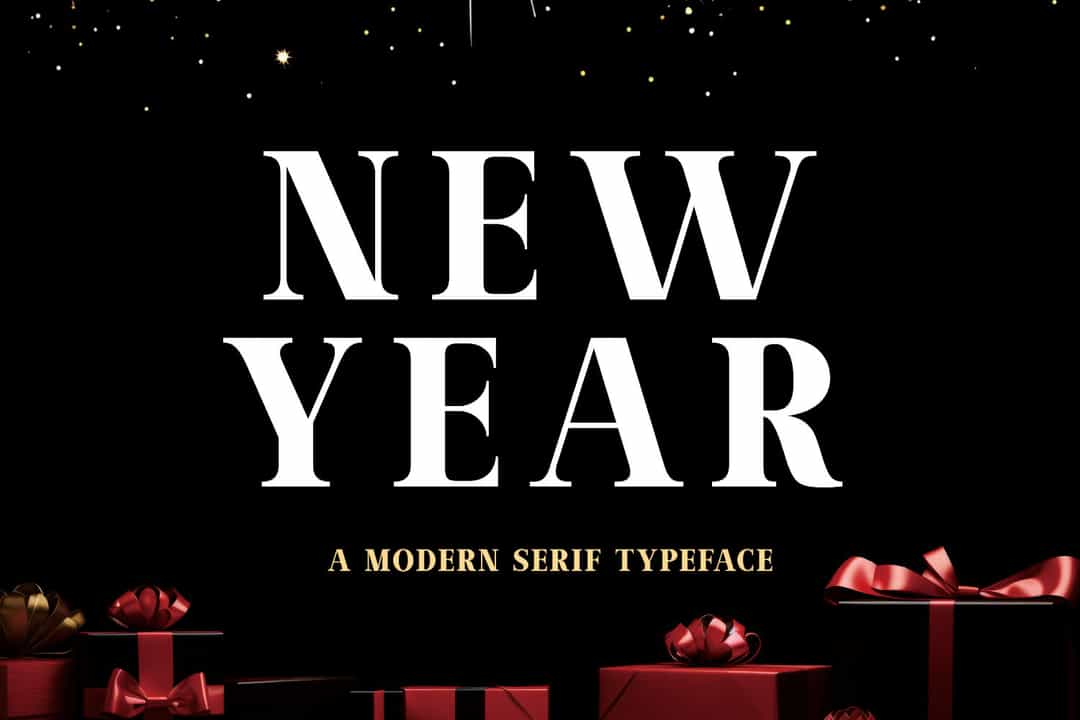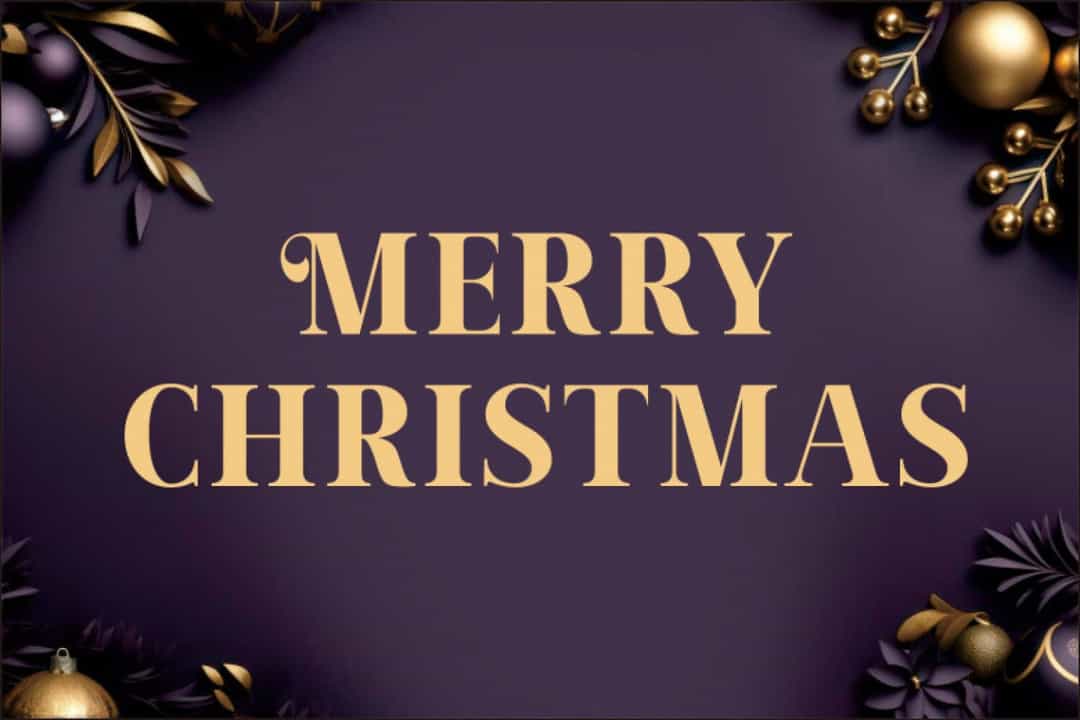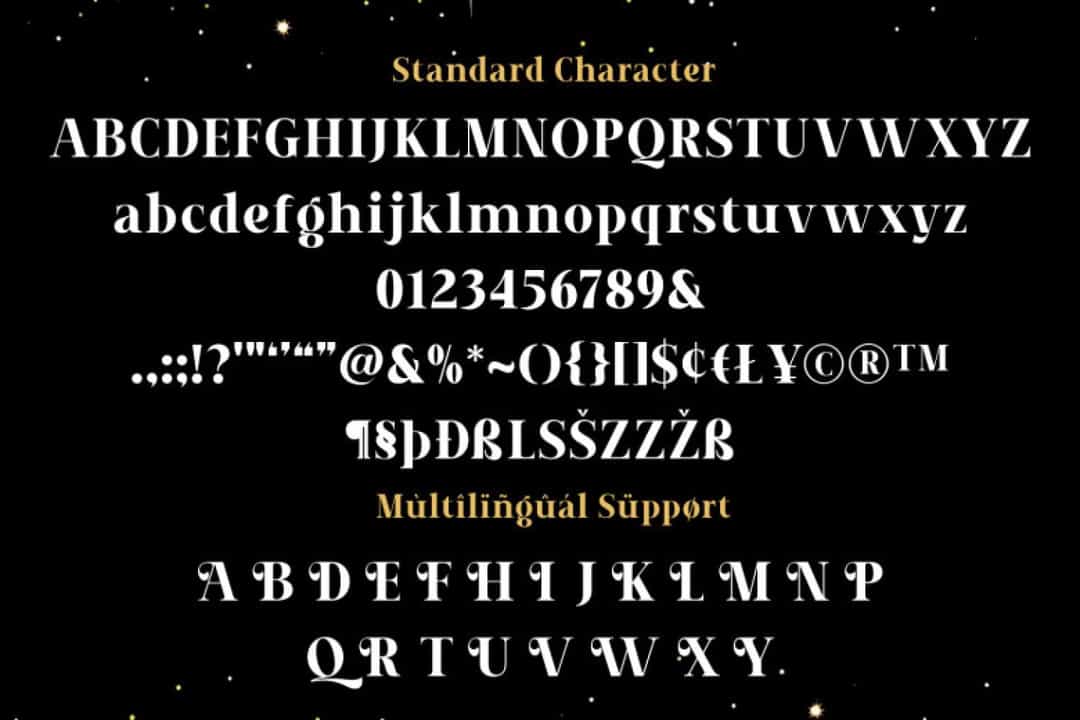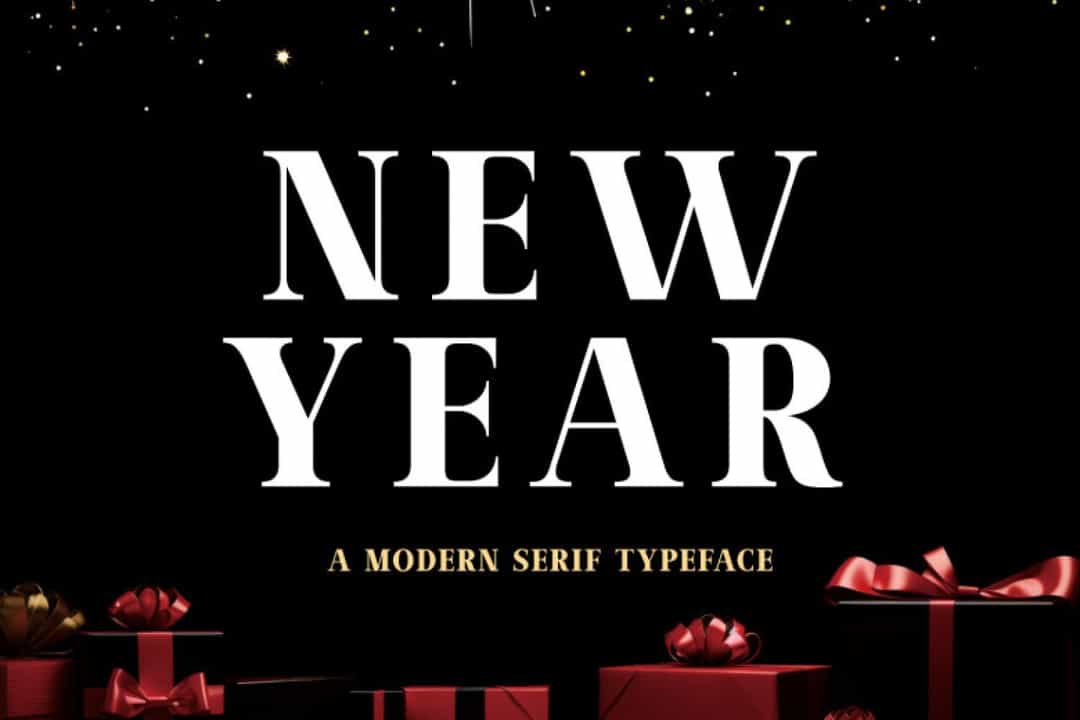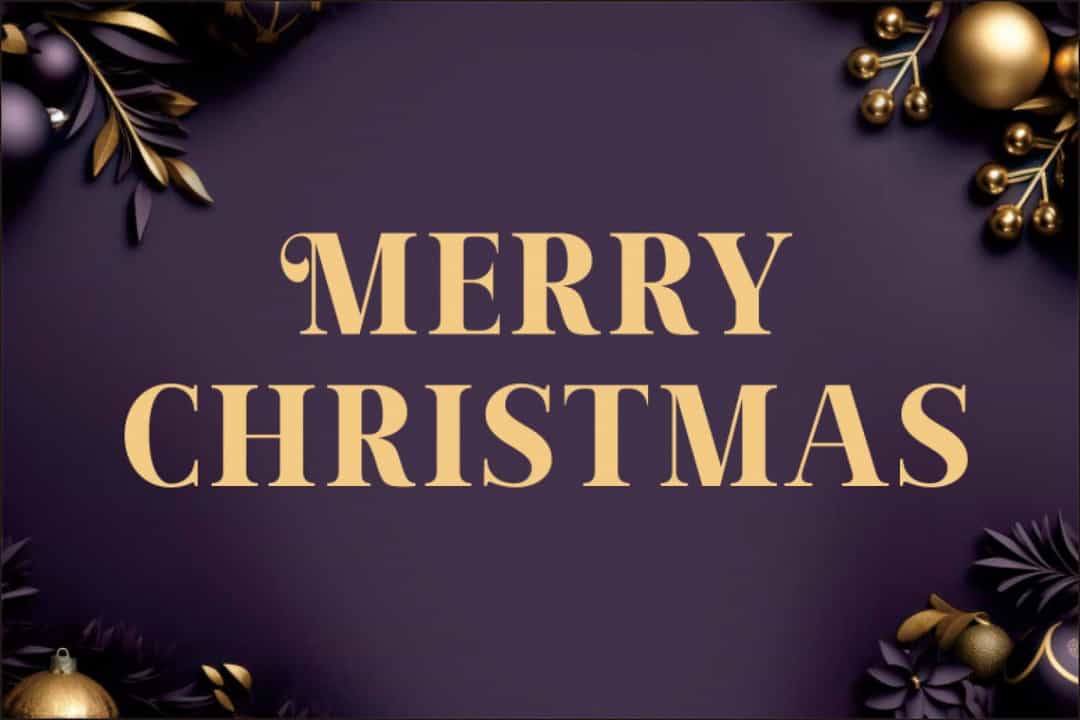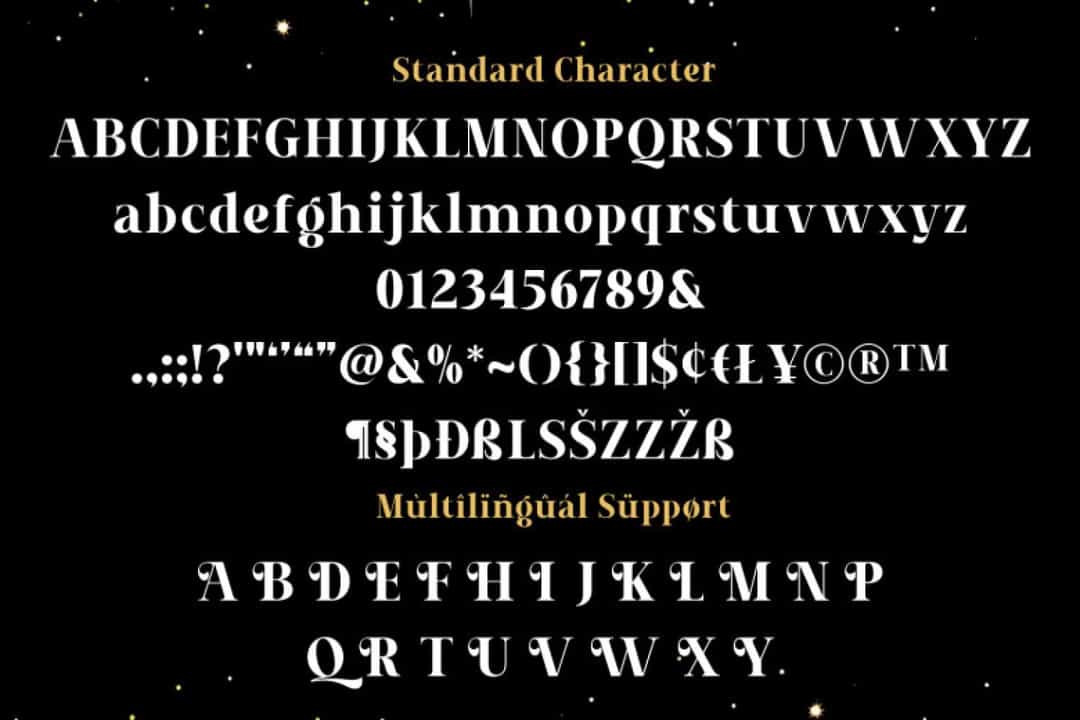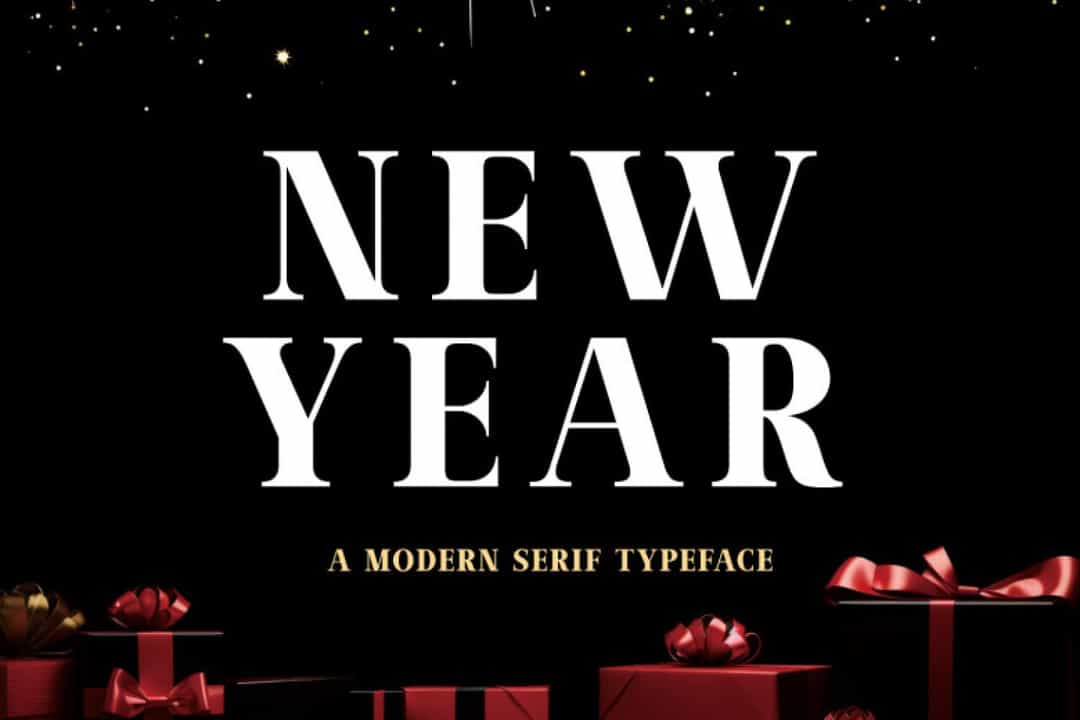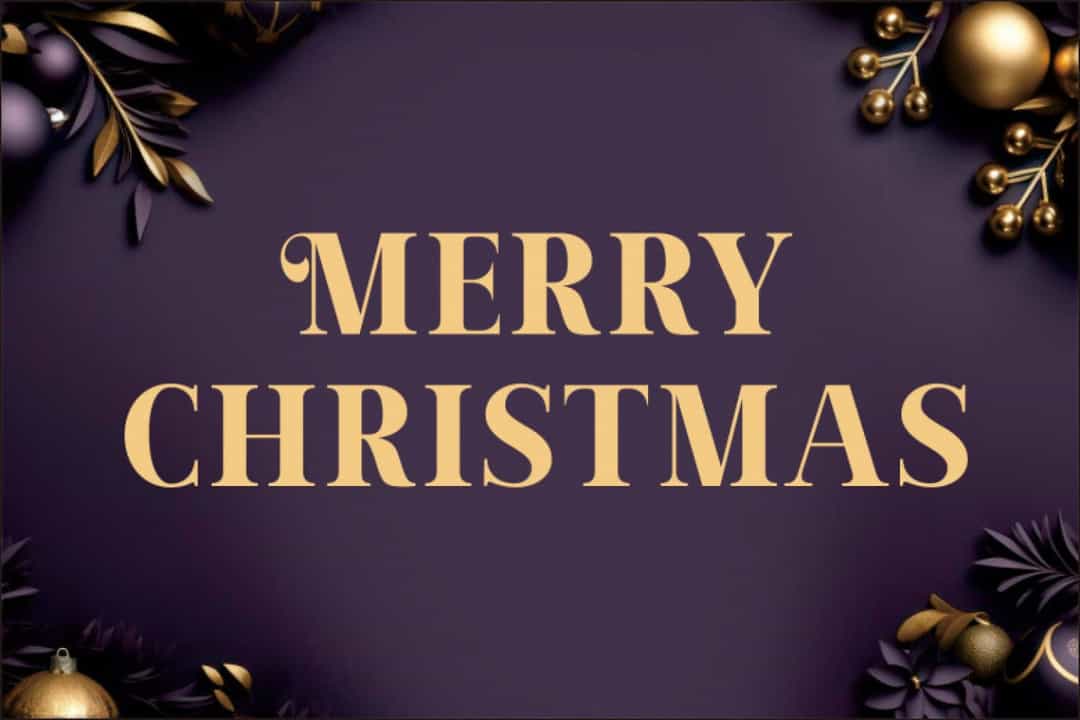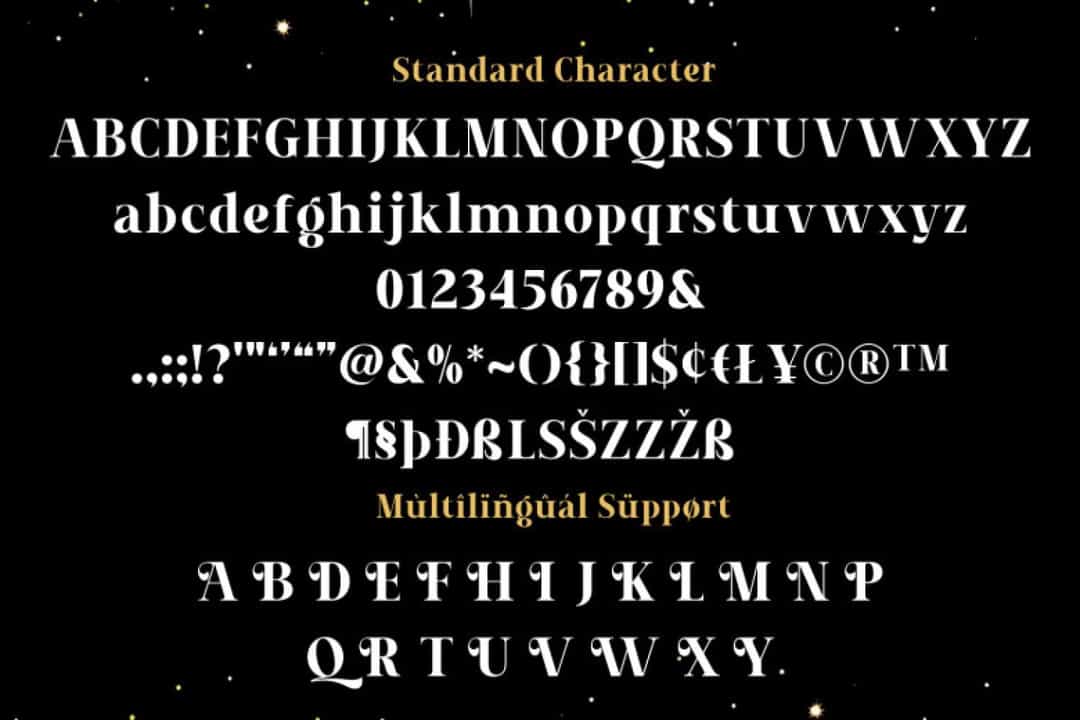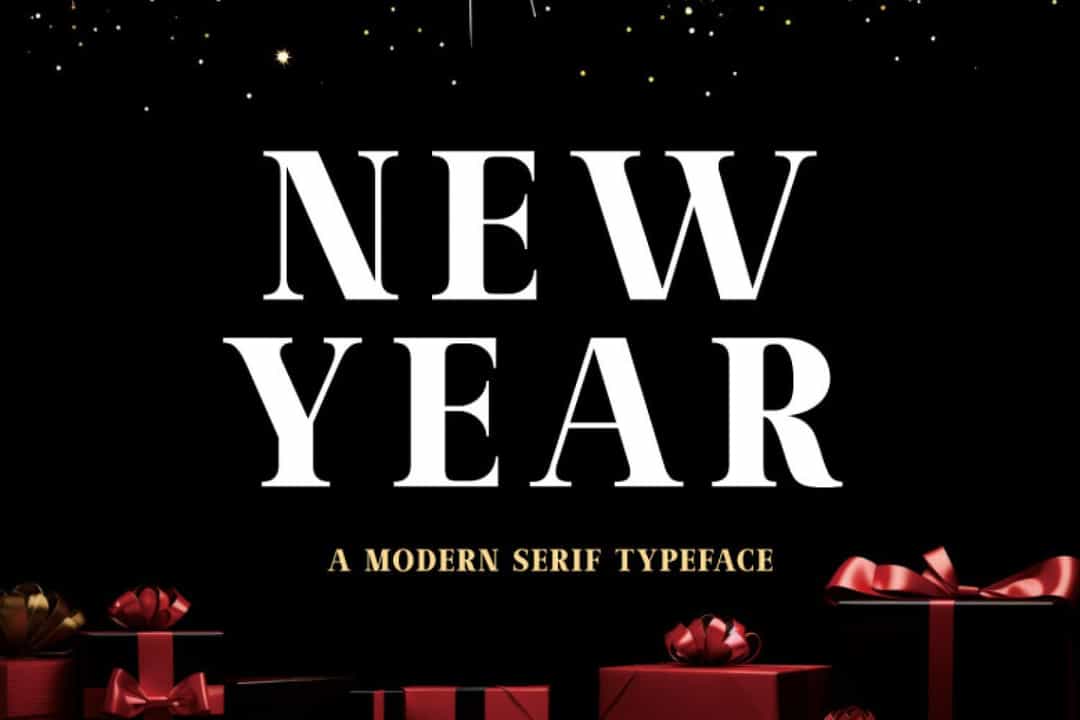
“New Year Font,” is an eye-catching serif font designed specifically to celebrate Thanksgiving, winter holidays and New Year projects. Offering both oblique and regular styles makes this versatile font perfect for cards, decorations for holidays as well as craft lettering or embroidery projects.